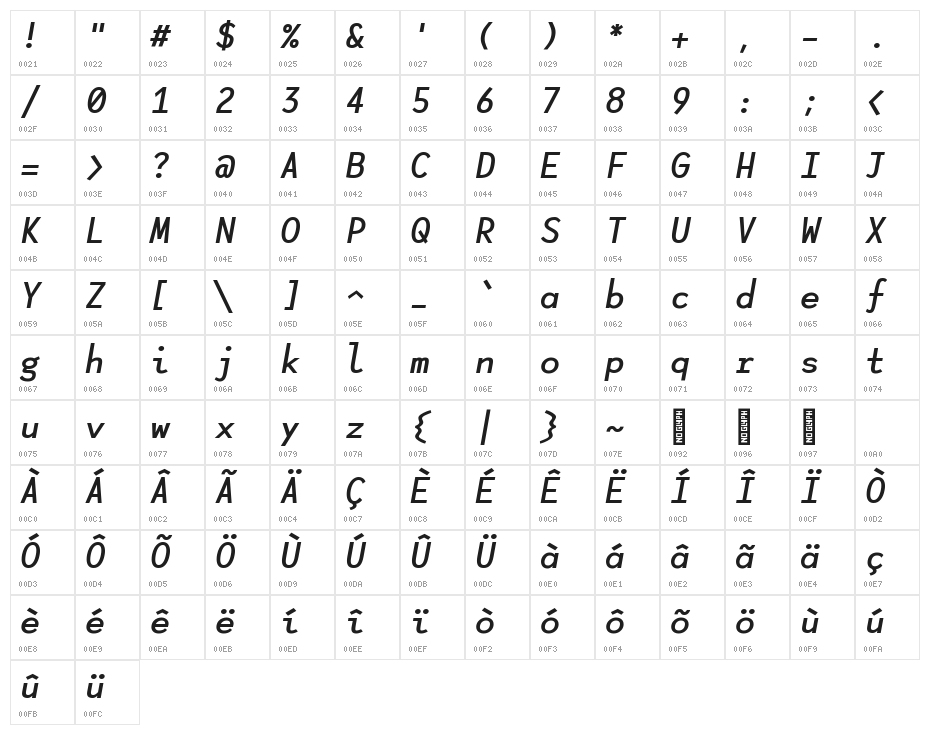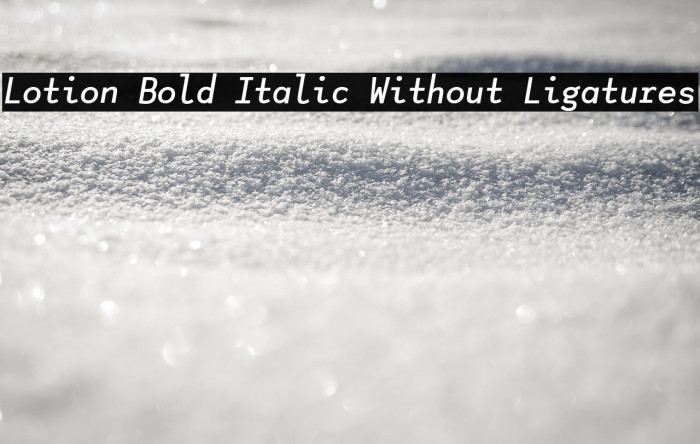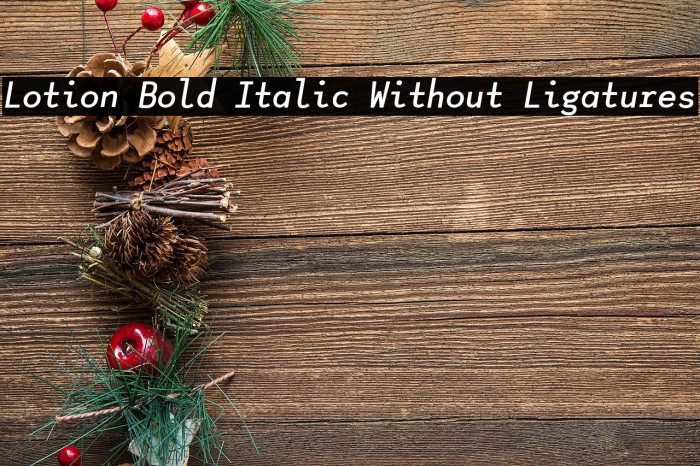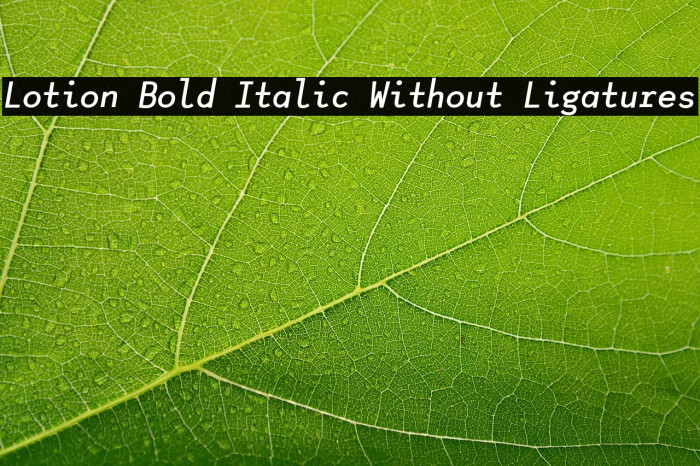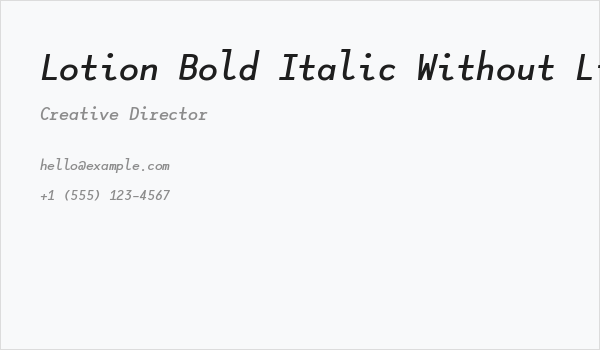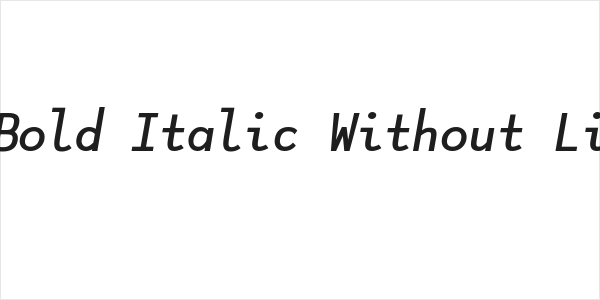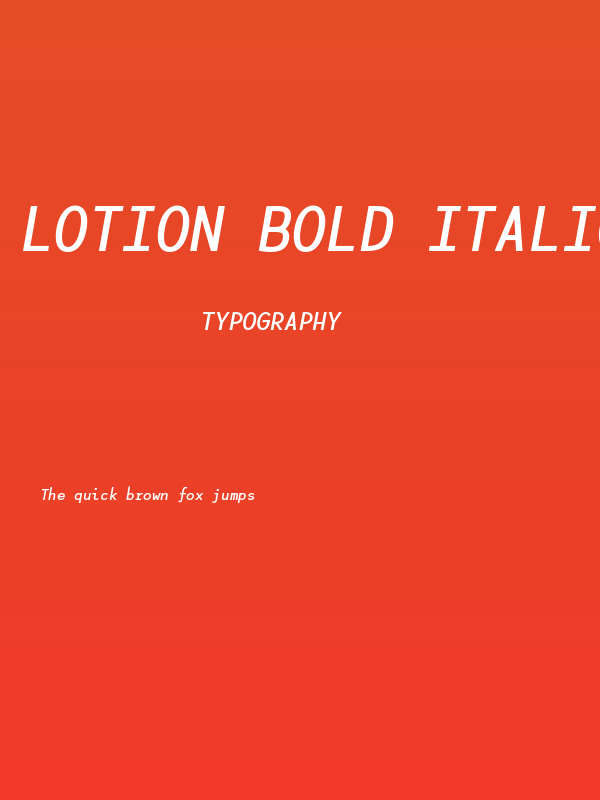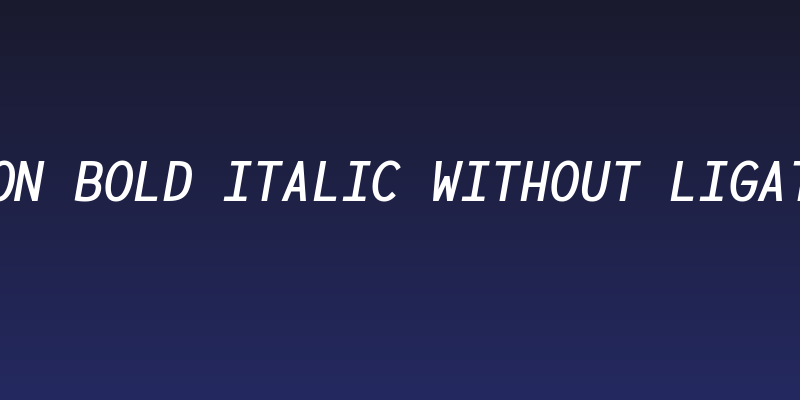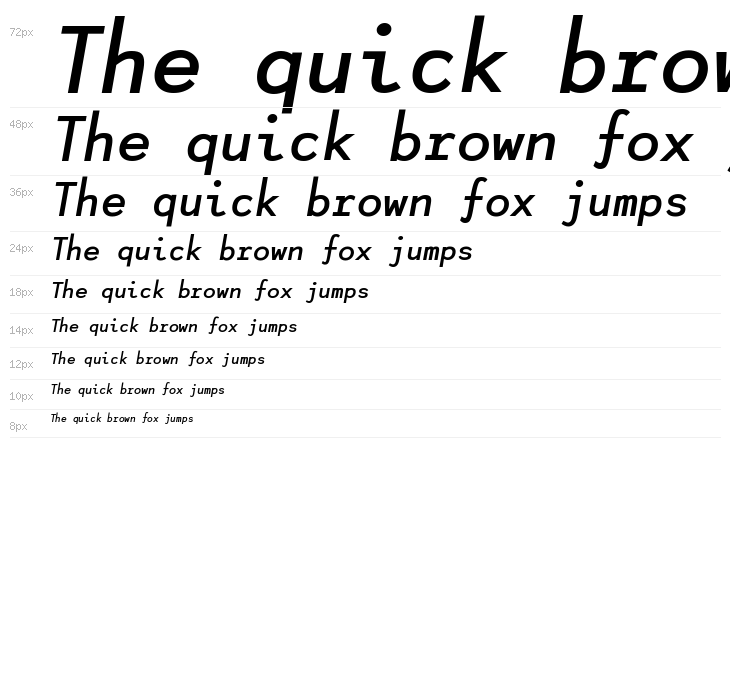
Lotion Bold Italic Without Ligatures Font
Lotion Bold Italic Without Ligatures Description
This font features a bold and italic style, characterized by its slanted and robust letterforms. The uppercase and lowercase letters maintain a consistent slant, providing a dynamic and energetic appearance. The numerals are clear and bold, ensuring readability. Special characters are well-defined, adding to the font's versatility. The absence of ligatures gives it a straightforward and clean look, making it suitable for various design applications. Its bold weight and italic style make it stand out, while the consistent character width ensures uniformity across text.
| Proposed Projects | Ideal for branding, advertising, headlines, and any design requiring a bold, dynamic typeface. |